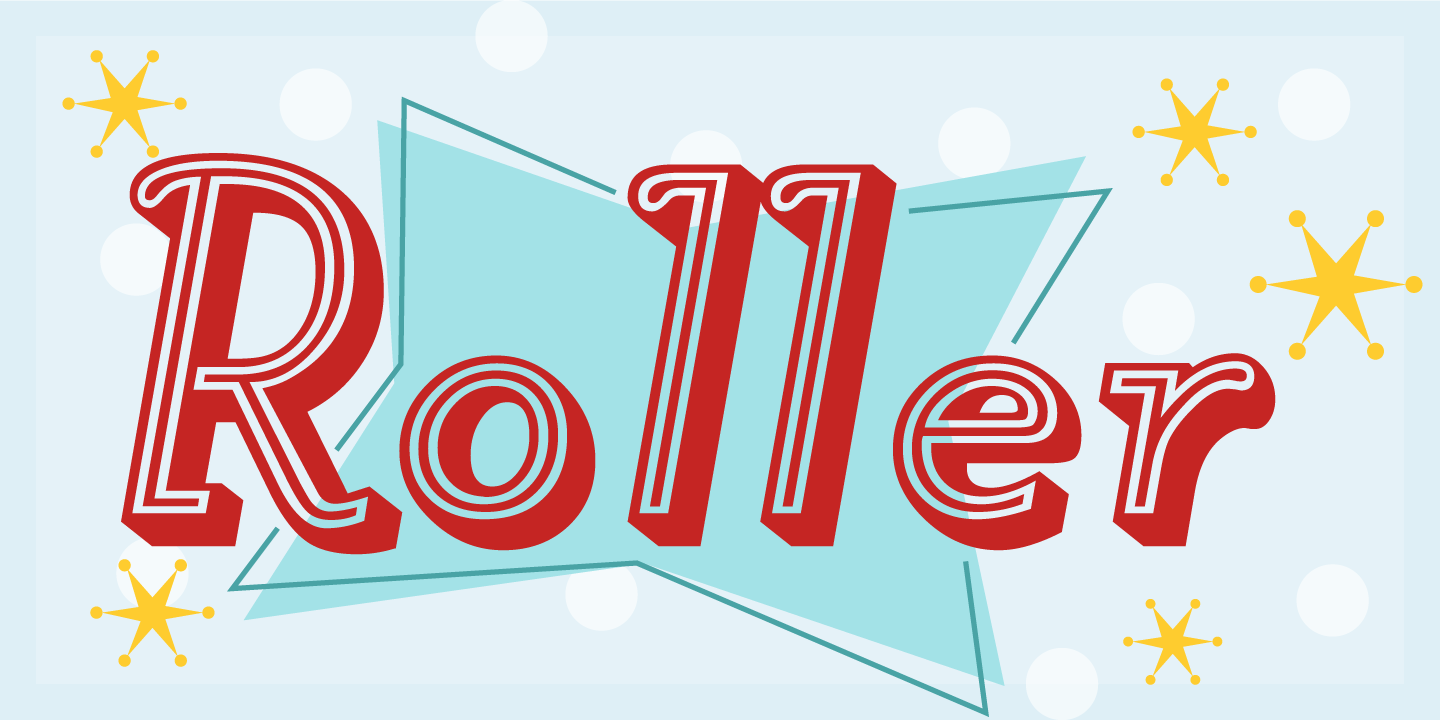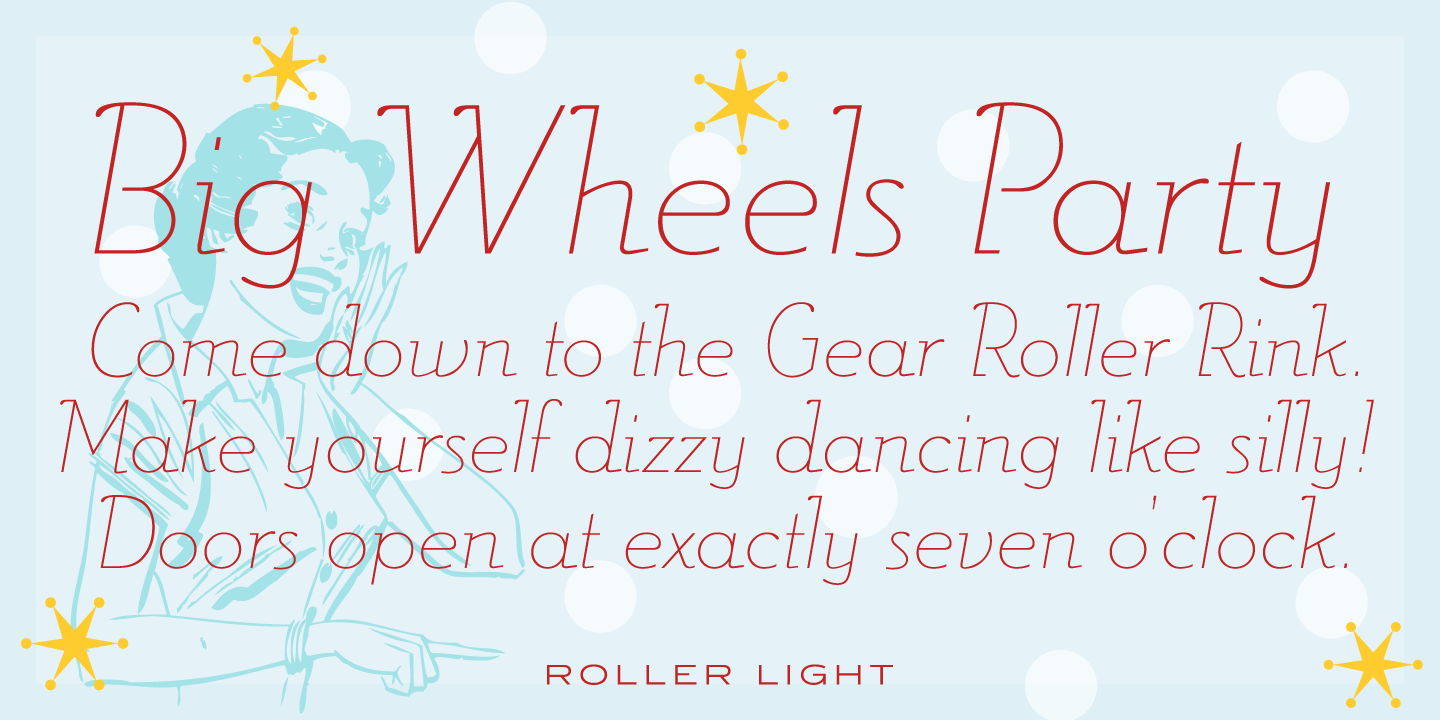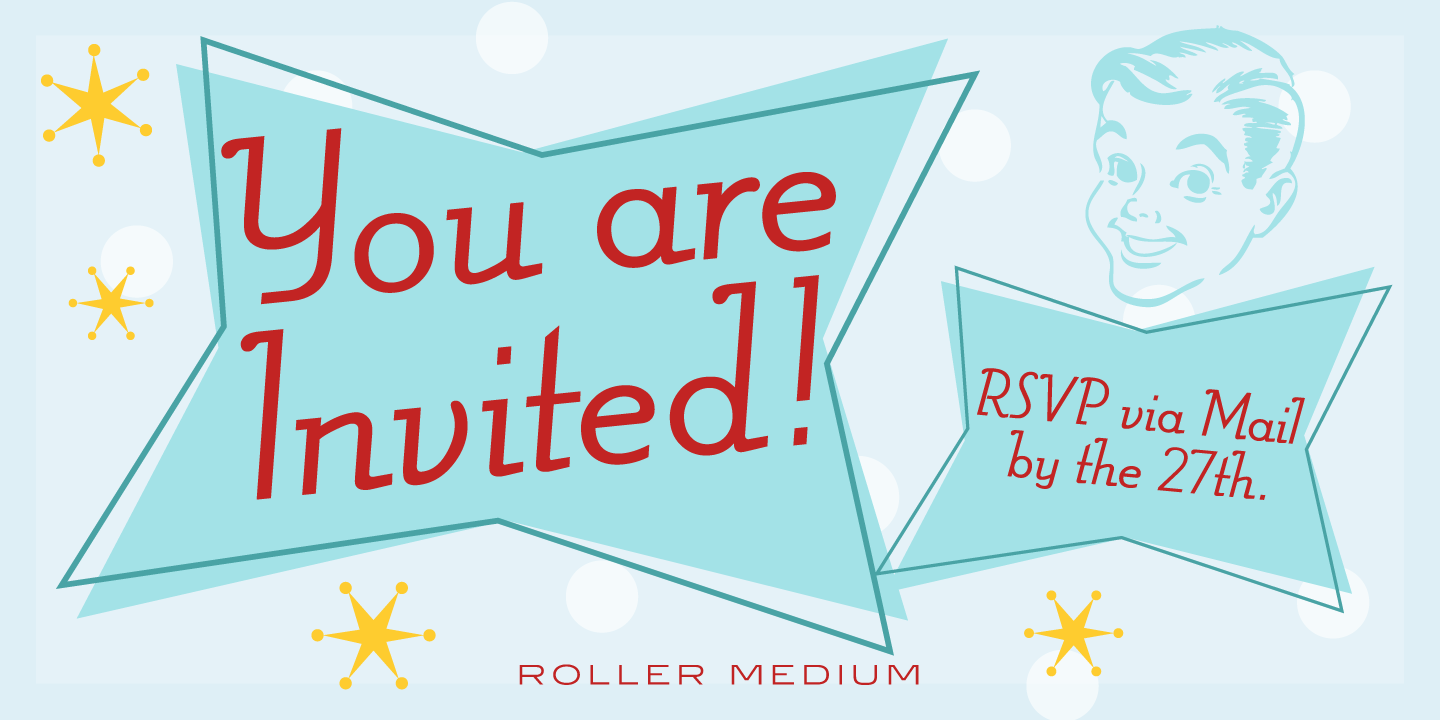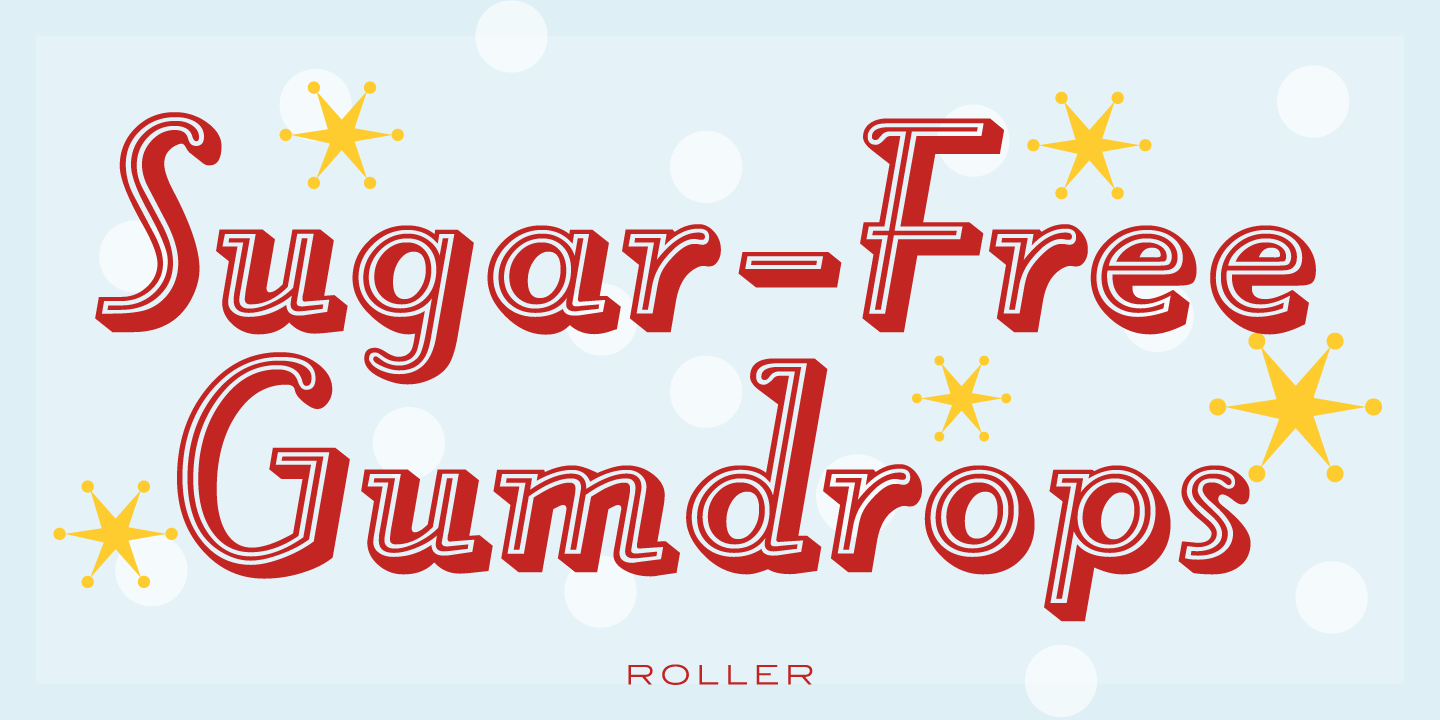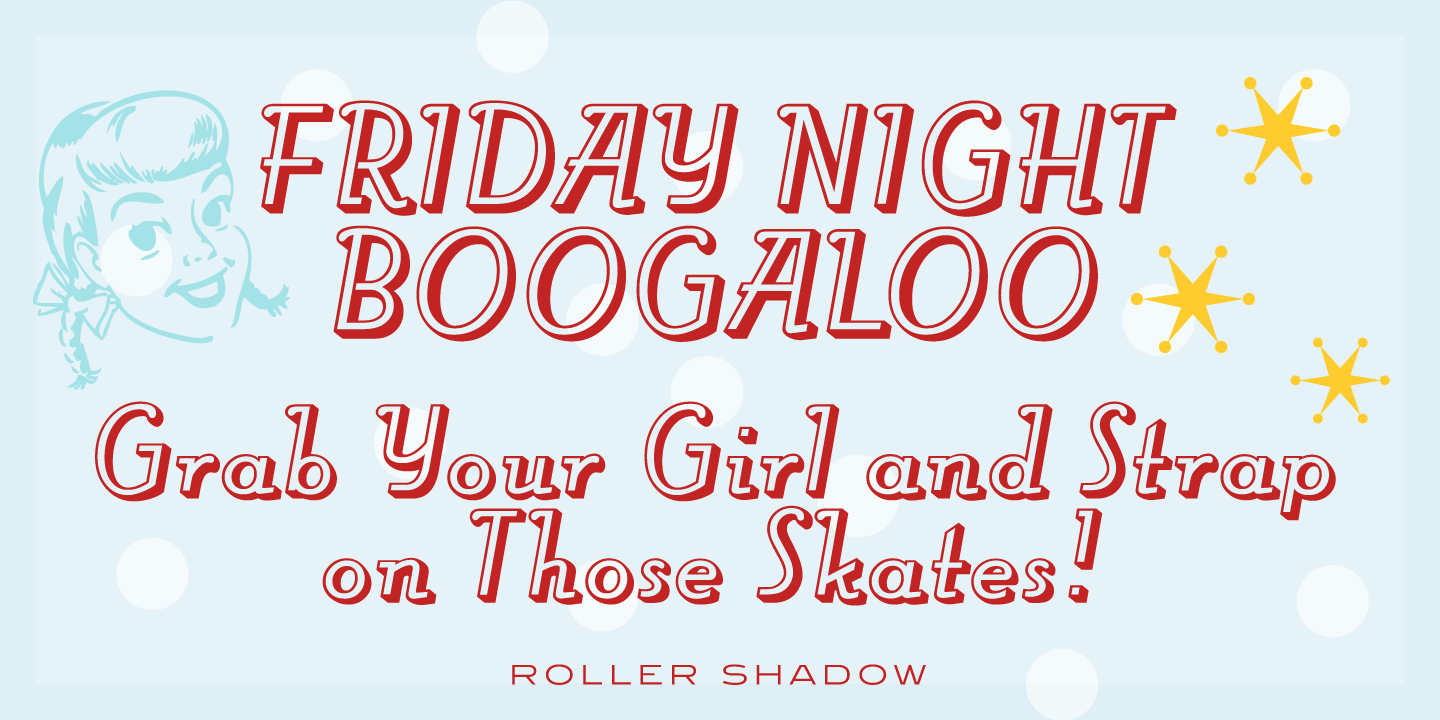
Roller Font Family
Roller is a decorative typeface known for its tall ascenders. It was originally created for Face Photosetting in London during the early 1970s. Pat Hickson (P&P Hickson) redesigned and expanded Roller into a complete typeface family exclusively for the Red Rooster Collection. In 1997, Steve Jackaman produced the full commercial digital versions of this typeface. Roller is based on Carlos Winkow’s ‘Iberica,’ which was designed around 1942 for the Spanish foundry Nacional.